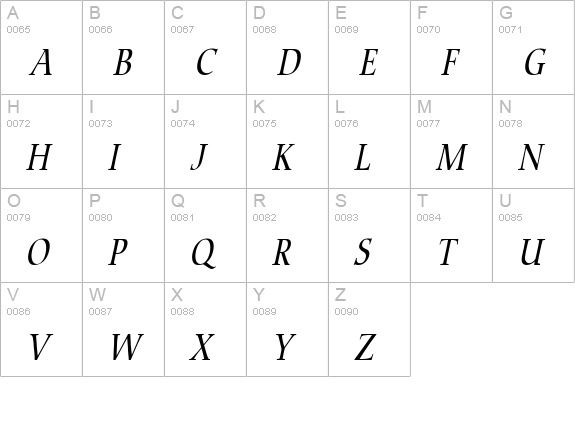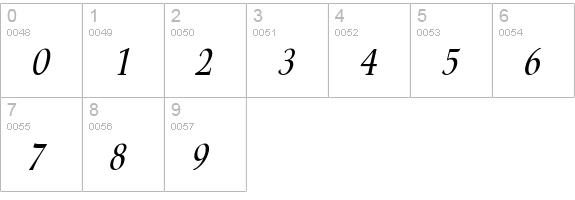
Carmine-Condensed Italic Font Details
Carmine-Condensed Italic is a distinctive, condensed-width, italic variant in the Carmine typeface family \xE2\x80\x94 well suited to design and typography projects.
Carmine-Condensed Italic is a sleek and modern font that exudes sophistication and elegance. Its condensed design gives it a unique and contemporary look, making it perfect for a wide range of design projects. The italic style adds a touch of flair and creativity to any text, making it stand out from the crowd. What sets Carmine-Condensed Italic apart is that it is not only stylish and versatile but also free to download. Yes, you read that right - this beautiful font is available for free at FontsMarket.com. This means you can easily incorporate it into your designs without breaking the bank. Whether you're working on a branding project, a website design, or any other creative endeavor, Carmine-Condensed Italic is sure to elevate your work and leave a lasting impression. Download it for free today and add a touch of sophistication to your projects!